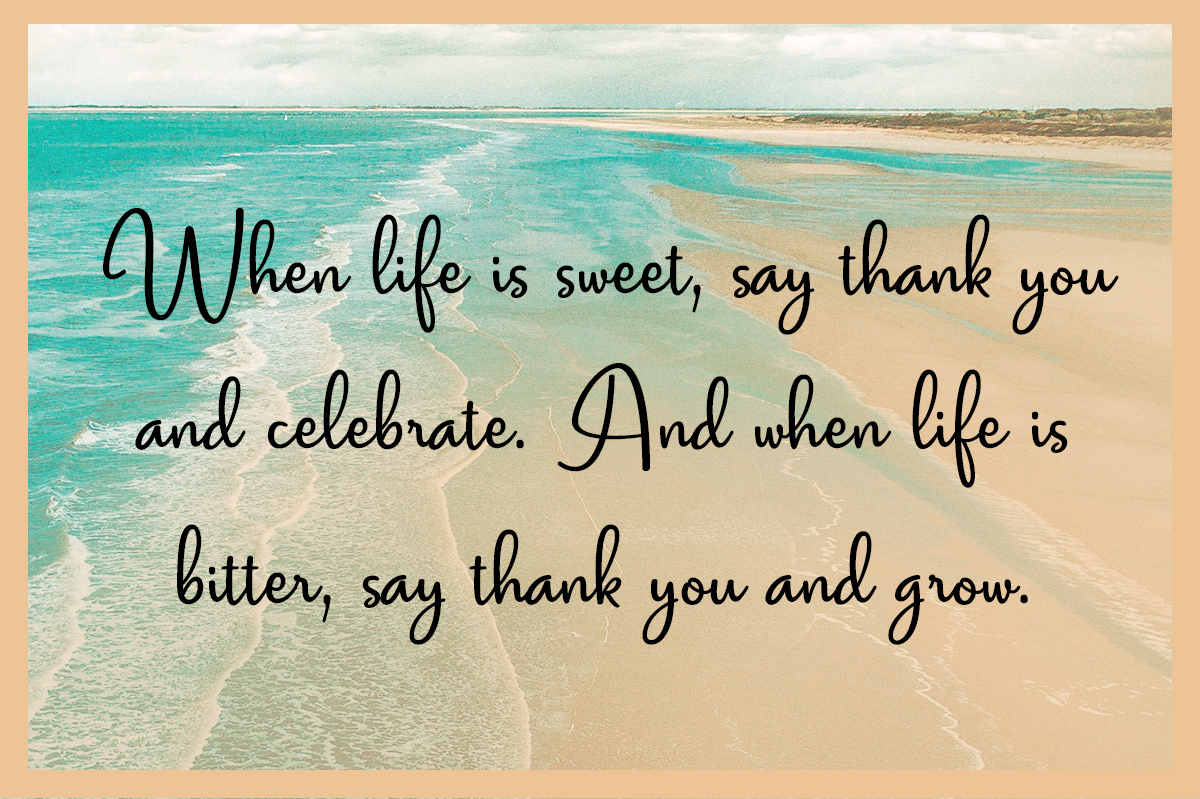
Sea Salt Font
About Sea Salt Font
Sea Salt is a wonderfully nostalgic script font, suitable for giving your designs a legible yet highly stylized feel. This handwritten script is both fresh and modern, perfect for giving your designs a sunny intention.